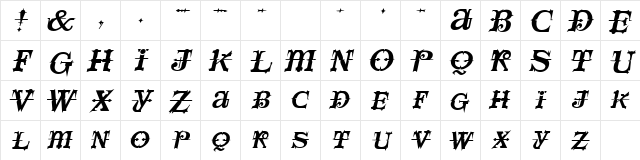
SpaceIvey is a composed and adaptable typeface that performs quietly and consistently across a wide range of design contexts. The slanted form adds forward momentum and visual energy.
Pro Tip: Use SpaceIvey for emphasis, pull quotes, and subheadings where its slanted energy can add rhythm to the layout.